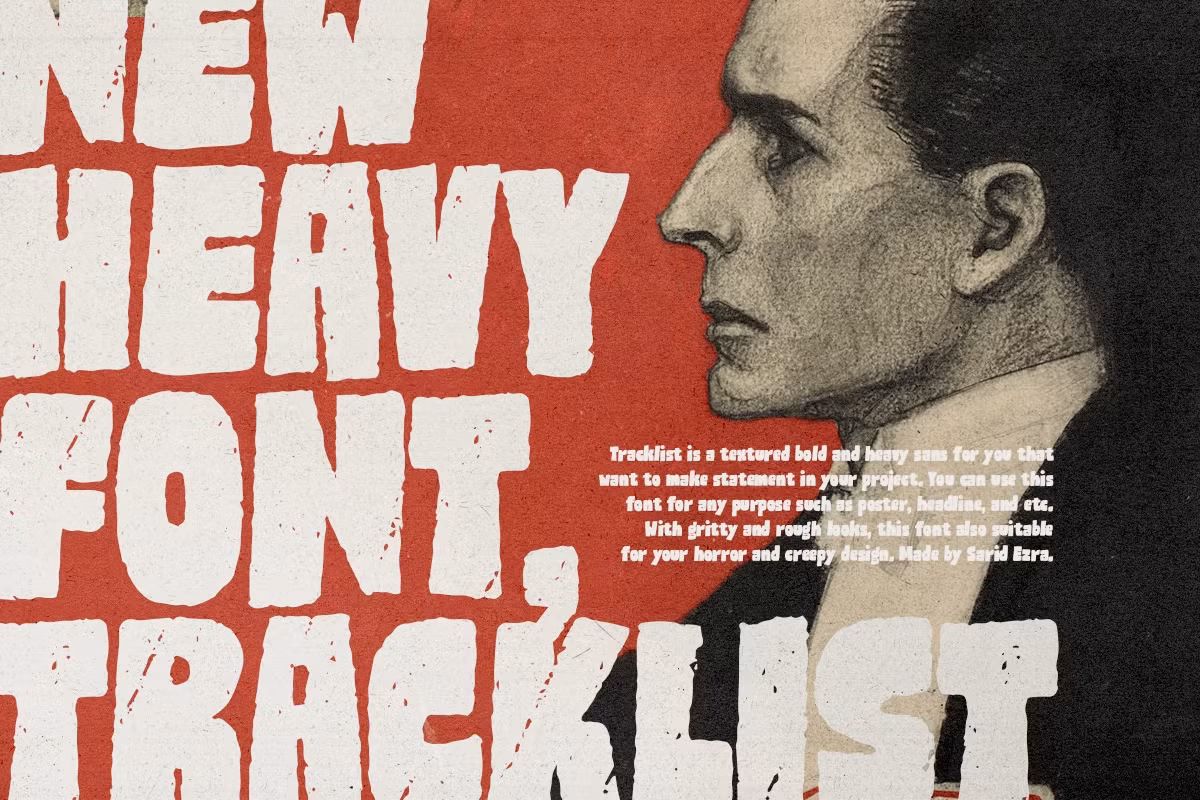
Tracklist - Rough Bold Font Free Download
Tracklist – Rough Bold Font Free Download is a rugged and dynamic typeface made to command attention with bold strokes and raw texture. Please note, you are required to purchase this font for commercial use. It is available for free download for testing and personal projects only.
With its distressed edges and heavy weight, Tracklist is ideal for music posters, urban branding, streetwear, merchandise, sports graphics, and bold editorial headlines. It brings a rebellious, gritty aesthetic to your designs—perfect for projects that don’t play by the rules.
By choosing Tracklist – Rough Bold Font Free Download, you're getting a high-impact display font that installs effortlessly and performs flawlessly on all major design platforms. Whether you're creating for print or digital, Tracklist adds intensity, attitude, and unmistakable character to your typography.